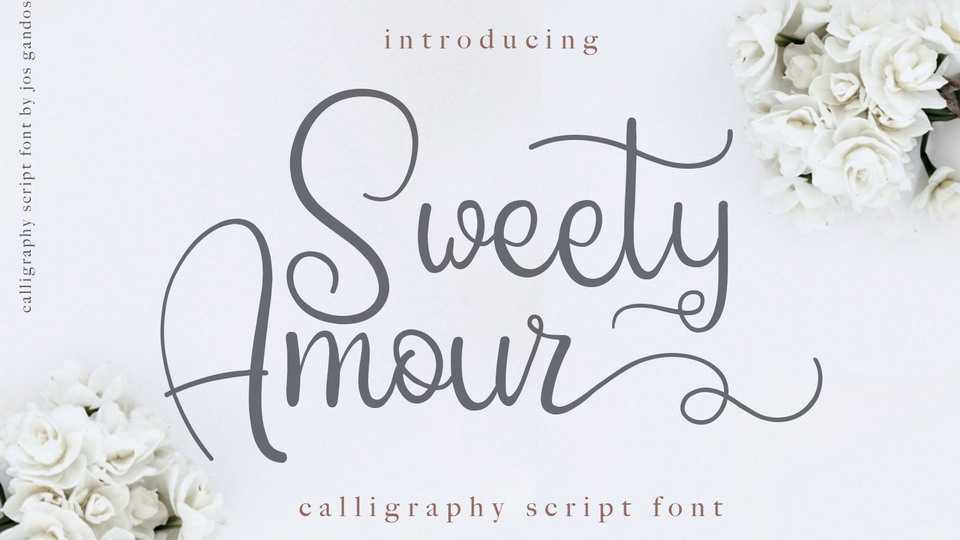
Download Sweety Amour font, a lovely modern calligraphy script with a sophisticated and romantic style. It is perfect for branding, wedding, photography, and any design related to feminine design.
Designer: Jos Gandos